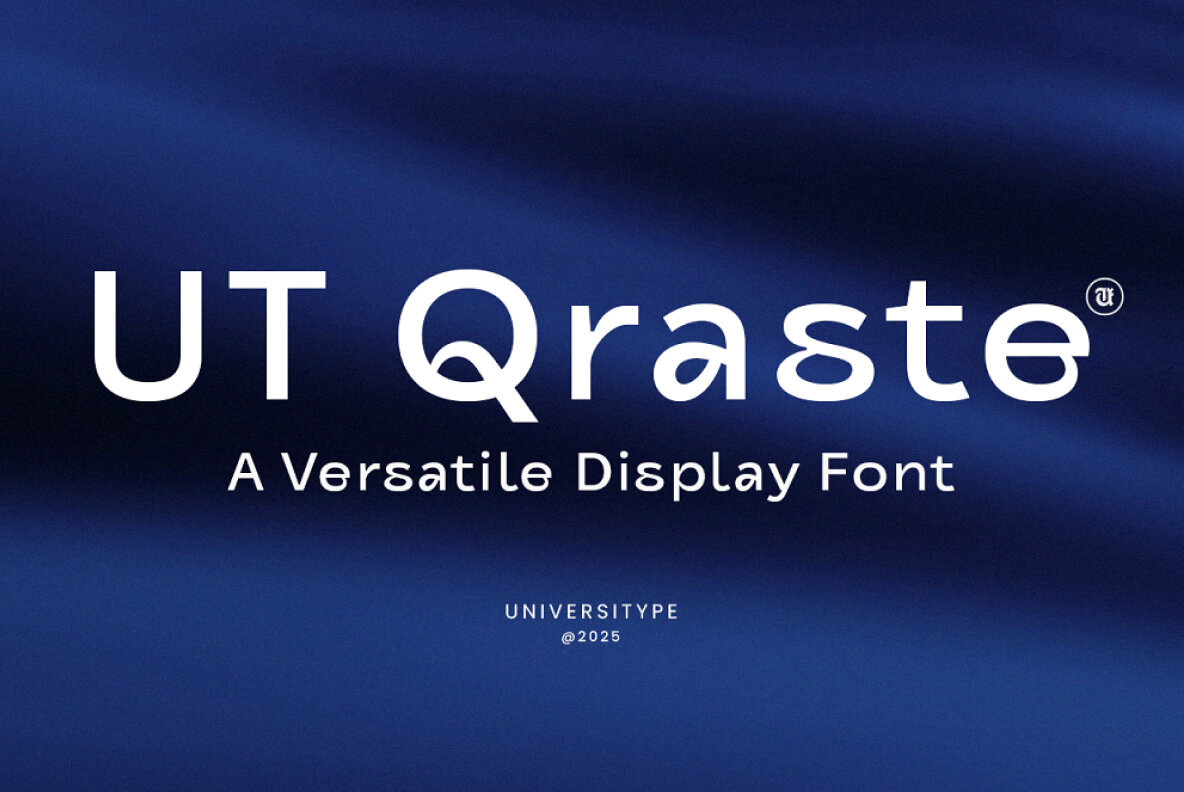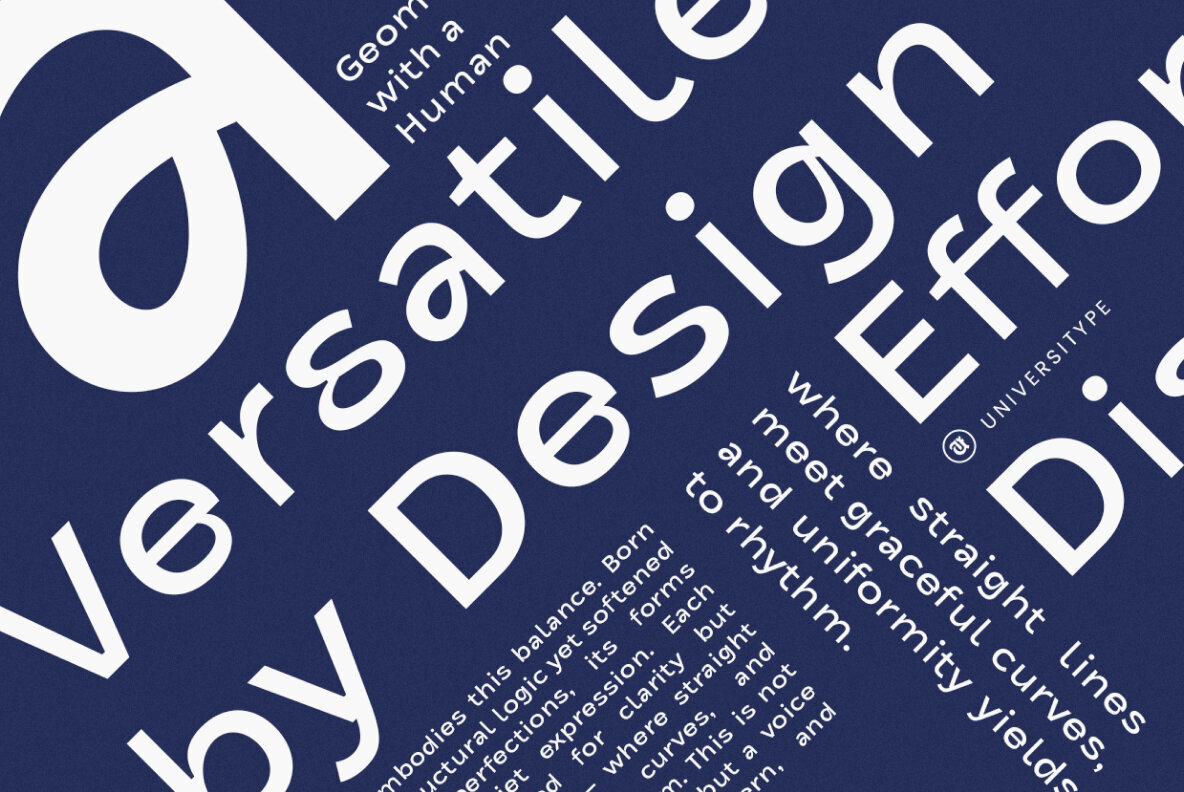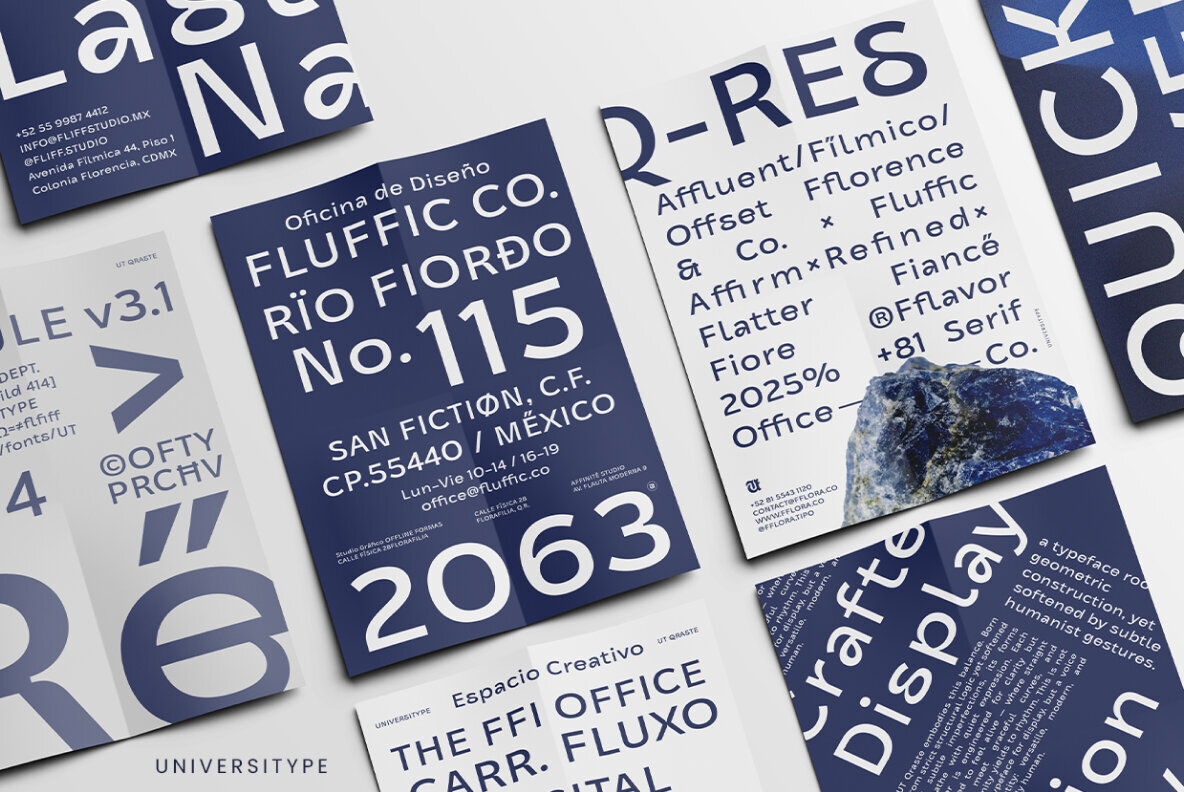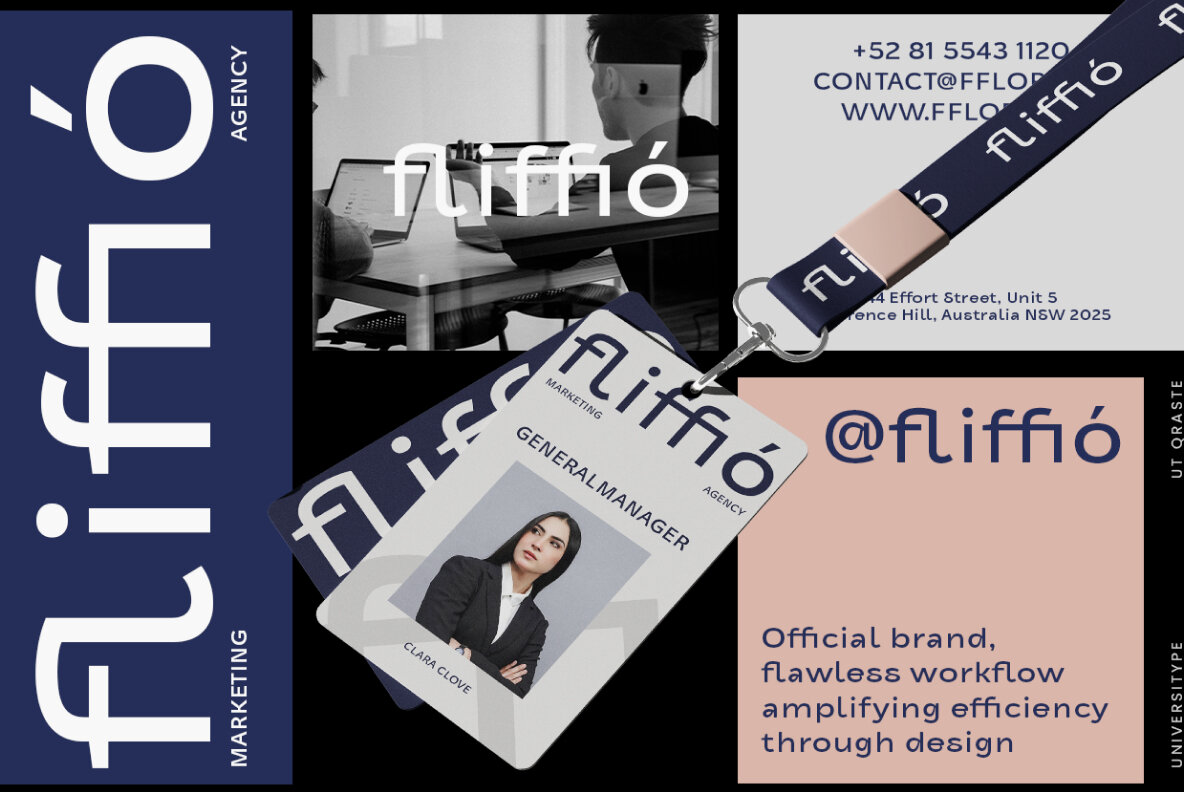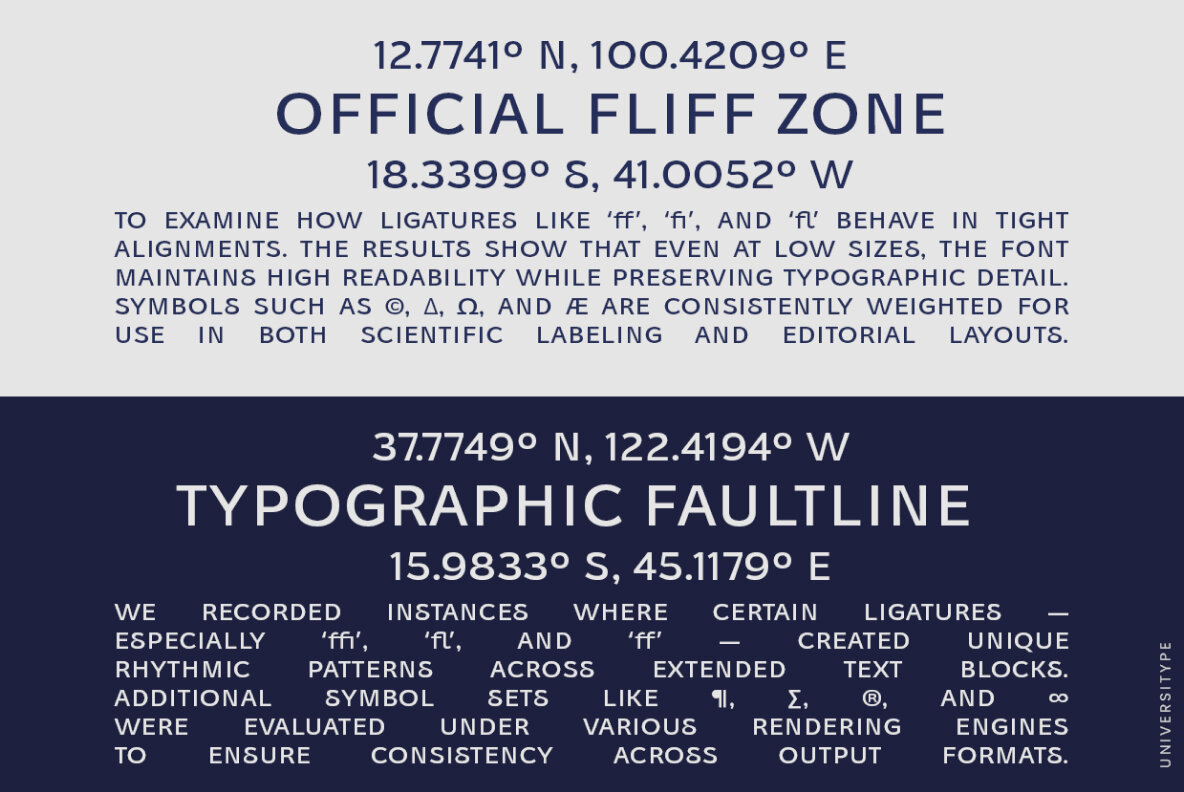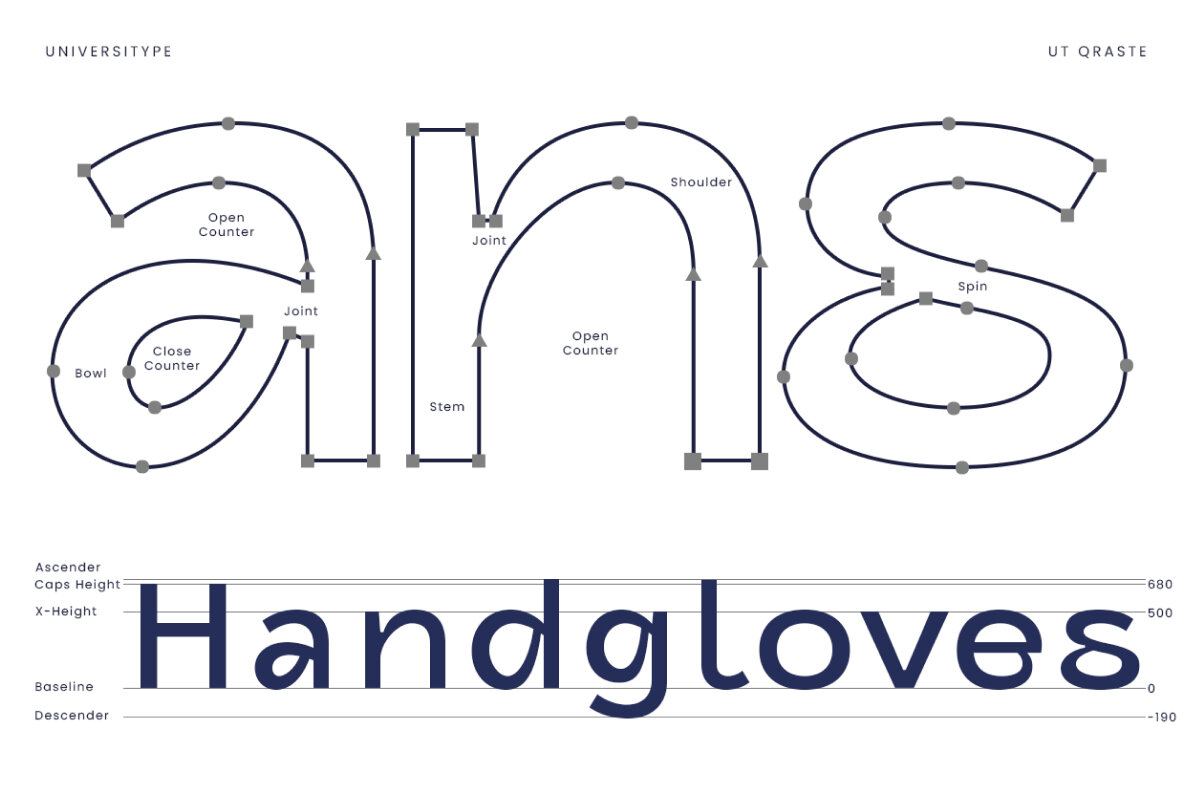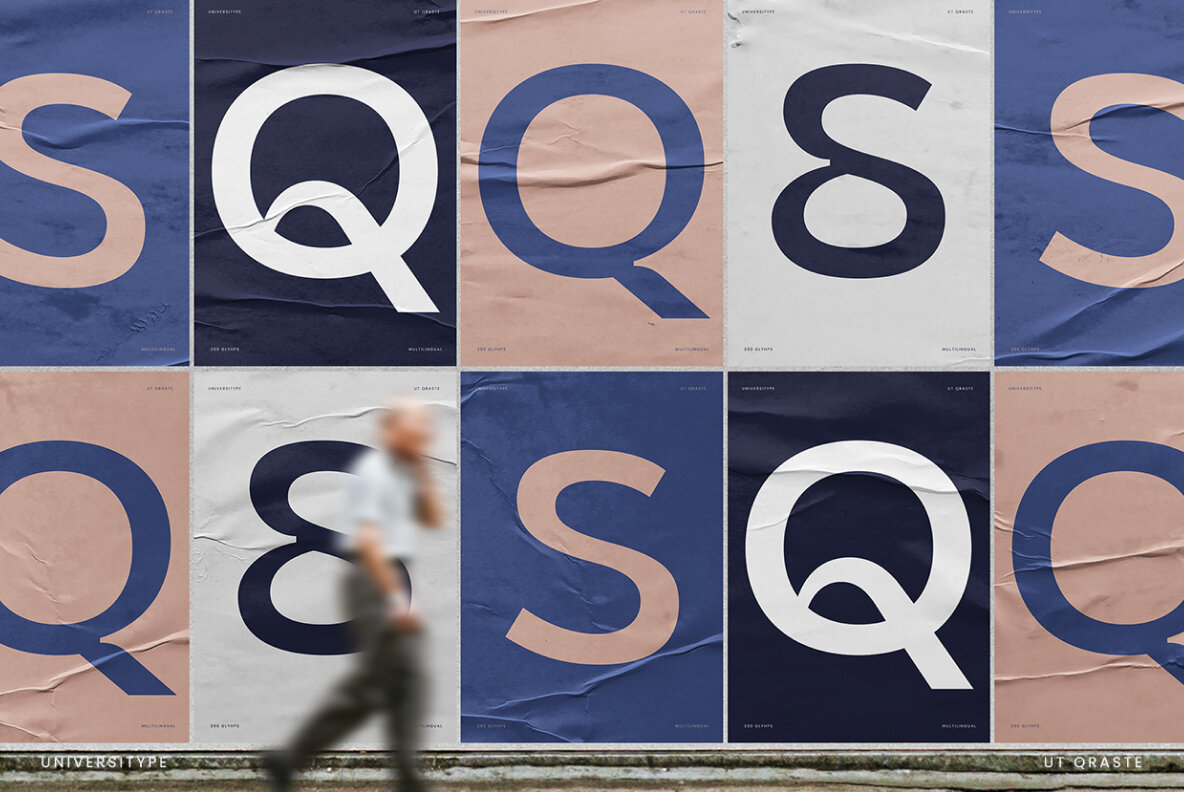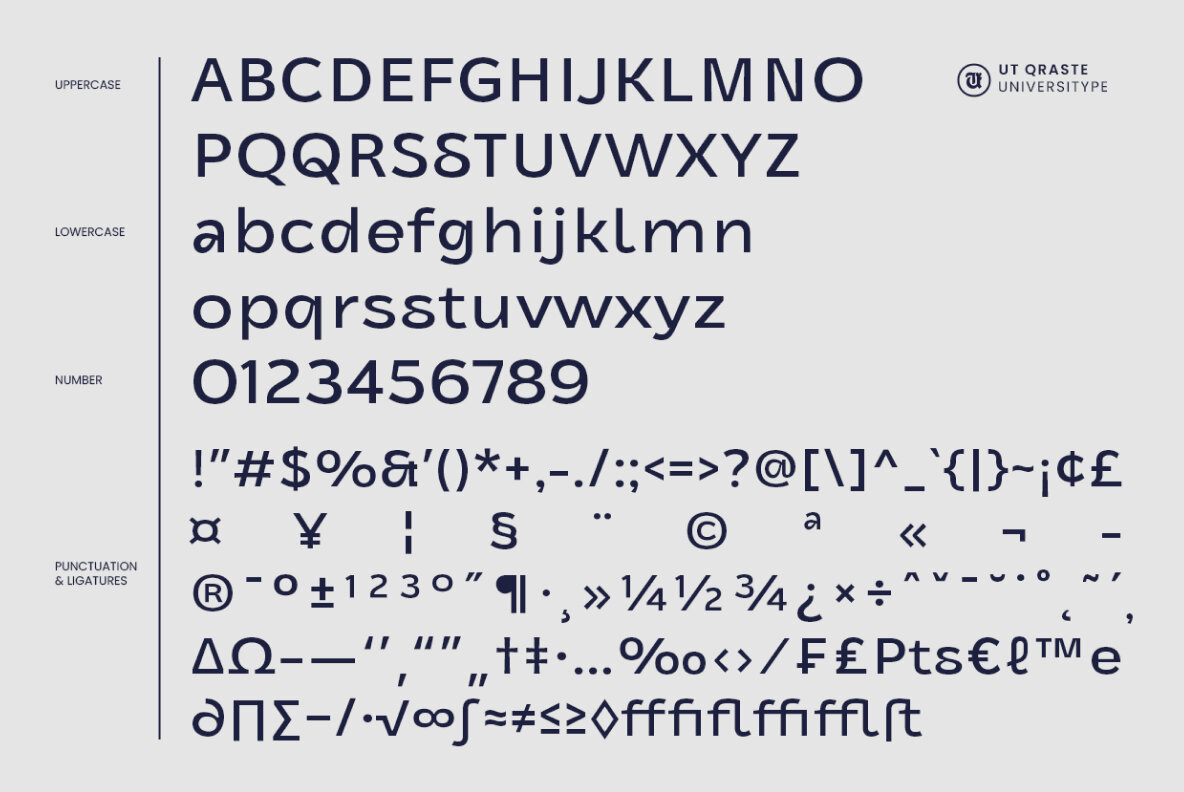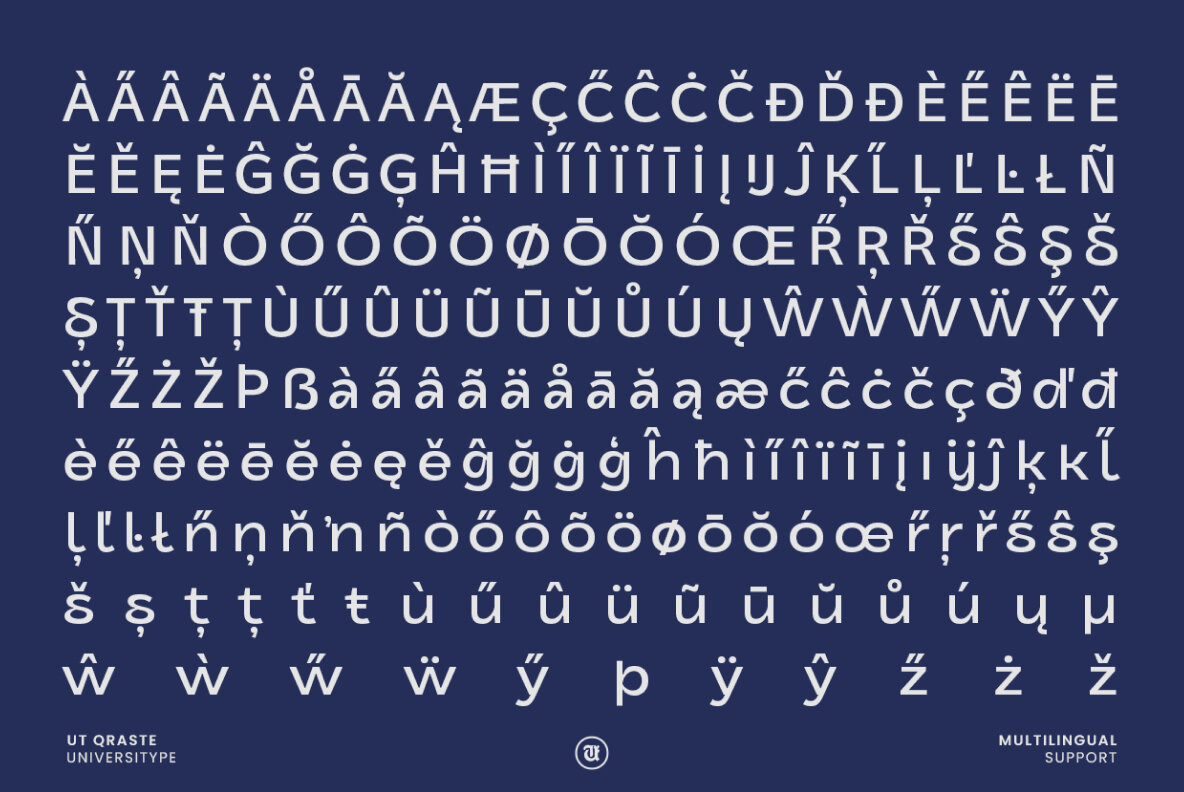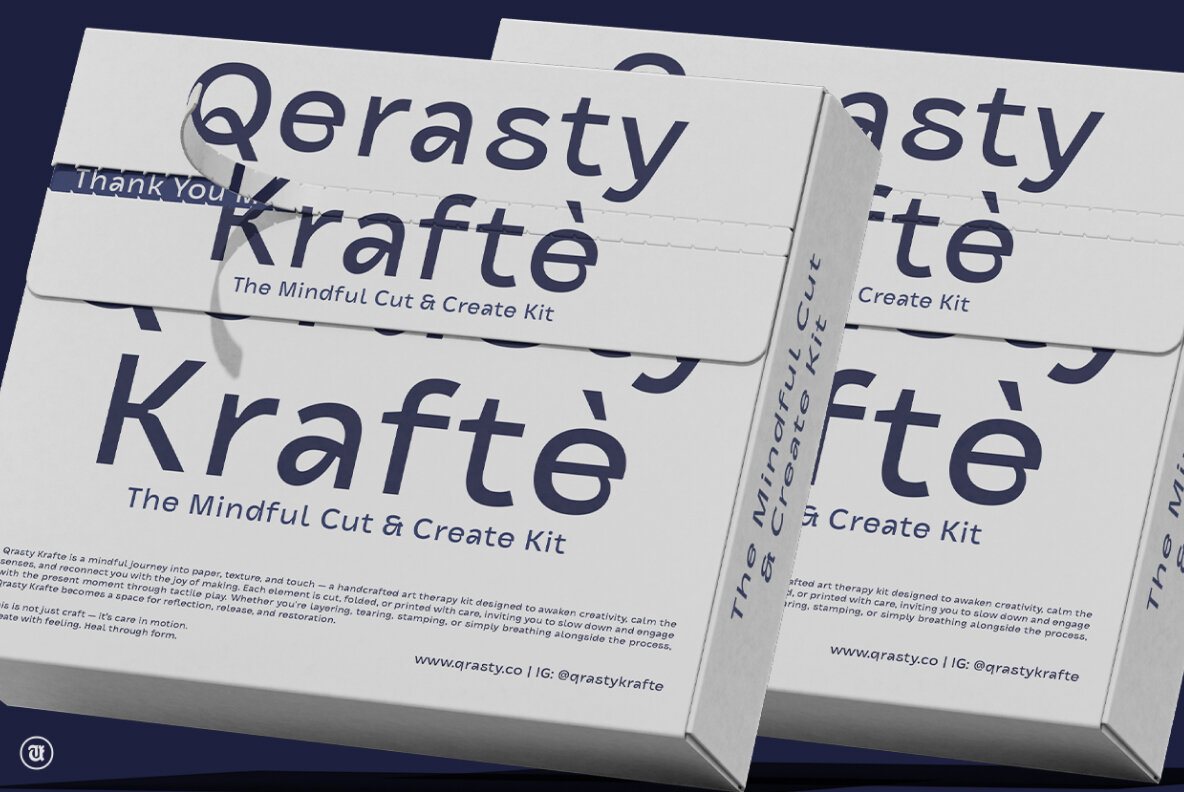
Embrace simplicity and sophistication with UT Qraste, a display font that captures attention through clean lines and geometric precision. Its smooth curves are masterfully balanced with structured forms, making it ideal for projects ranging from tech branding to editorial headlines and distinctive logos. With a touch of personality, this font enriches your design, keeping it both engaging and memorable. Inspiration Behind the Design UT Qraste emerges from the blend of structure and spontaneity—geometric forms infused with human expression. It derives its appeal from handwriting rhythms while maintaining a modular design philosophy reminiscent of Bauhaus infused with playful optimism.UT Qraste: A Modern Display with Geometric Precision